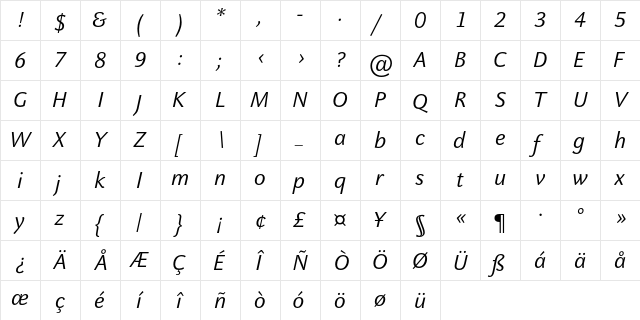
CelesteSans Italic
| Foundry | Christopher Burke |
| Designer | Christopher Burke |
Design Context for CelesteSans Typeface
CelesteSans offers clean, dependable letterforms without strong stylistic allegiance, making it a practical choice for designers who need flexibility. Its italic angle brings a sense of urgency and motion to the letterforms.
Pro Tip: Use CelesteSans for emphasis, pull quotes, and subheadings where its slanted energy can add rhythm to the layout.